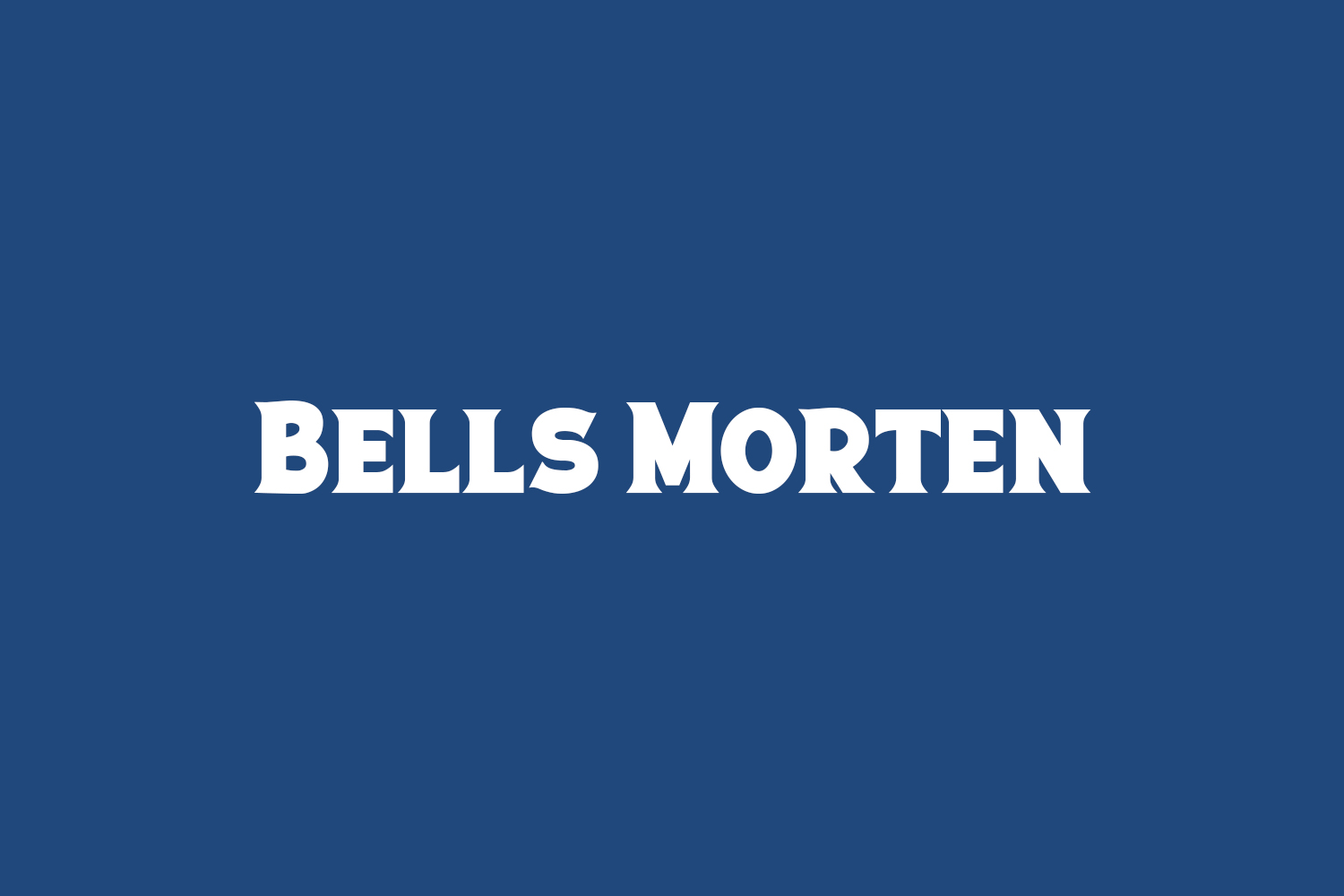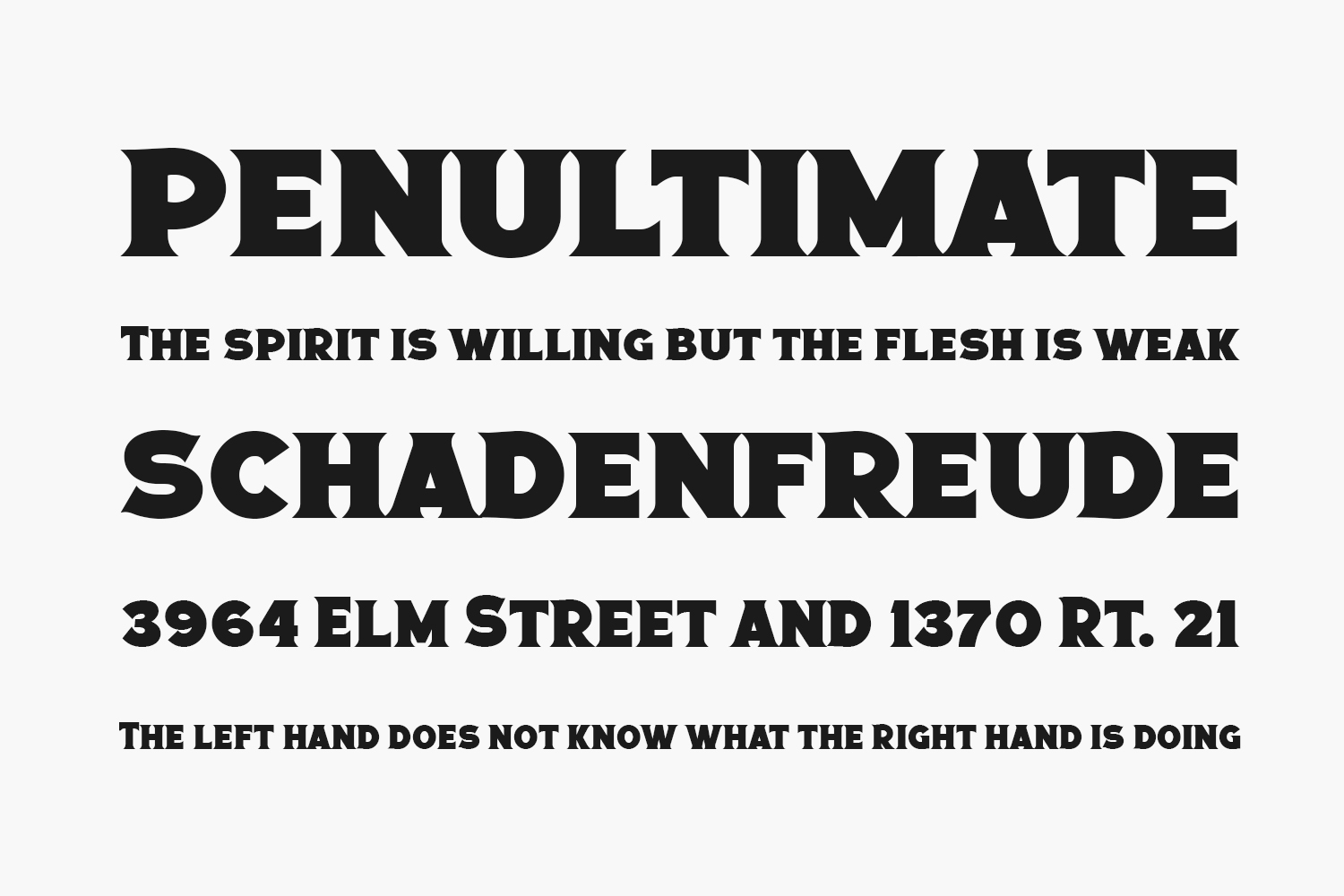
Unleash the power of Bells Morten Free Font, a bold and rough-textured display font that commands attention. With its thick letterforms, this typeface exudes confidence and makes a strong visual statement.
Bells Morten is tailor-made for a wide range of applications. Whether you’re designing product packaging, embarking on a branding project, creating captivating magazine covers, crafting engaging social media posts, curating wedding materials, or simply seeking to overlay expressive words onto backgrounds, this font is the perfect choice. Bells Morten Free Font is free for personal or commercial use.